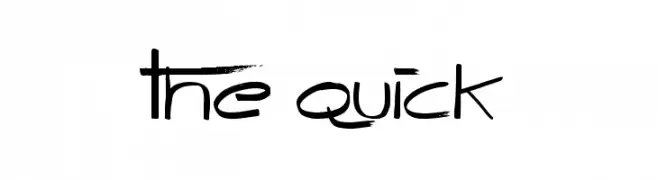
( Fonts by or from www.graffitifonts.net )
A playful, bold outline font with a hand-drawn, cartoonish style.
( Fonts by Nick Curtis - www.nicksfonts.com )
A dynamic, slanted font with elongated, narrow characters and a sleek, modern appearance.
( Fonts by Nick Curtis - www.nicksfonts.com )
A bold, vintage-inspired serif font with thick strokes and a strong presence.
A bold, geometric font with a futuristic and condensed design.
( Fonts by www.aenigmafonts.com )
A bold, geometric font with a futuristic and modern aesthetic.
( Fonts by Nick Curtis - www.nicksfonts.com )
A bold, geometric font with Art Deco influences and high contrast.
( Fonts by Nick Curtis - www.nicksfonts.com )
A bold, geometric font with sharp angles and smooth curves, perfect for modern designs.
( Fonts by Daniel Gauthier )
A bold, playful, hand-drawn font with a casual and friendly feel.
( Fonts by www.vicfieger.com )
A bold, hand-drawn font with a rough, textured appearance and dynamic style.
( Fonts by Nick Curtis - www.nicksfonts.com )
A bold, Art Deco-inspired font with geometric shapes and sharp angles.
( Fonts by Nick Curtis - www.nicksfonts.com )
A playful and whimsical font with curly serifs and rounded edges.
( Fonts by Nick Curtis - www.nicksfonts.com )
A bold, retro-style font with a three-dimensional effect and thick outlines.
( Fonts by Daniel Gauthier )
A bold, jagged font with an electric shock appearance.
( Fonts by Jacob Fisher - www.pizzadude.dk )
A bold, graffiti-inspired font with dynamic, hand-drawn strokes.
( Fonts by ShyFonts )
A bold, playful, and oblique font with dynamic curves and angles.
( Fonts by ShyFonts )
A bold, playful font with comic-style, exaggerated letterforms.
( Fonts by ShyFonts )
A playful, bold font with comic-style, exaggerated letterforms.
( Fonts by Mike Hind - Stick Fonts )
A bold, impactful font with thick strokes and a modern style.
( Fonts by Press Gang Studios - Andeh Pinkard - www.pressgang-studios.com )
An italicized, handwritten font with a dynamic and fluid style.
( Fonts by Press Gang Studios - Andeh Pinkard - www.pressgang-studios.com )
A playful, handwritten font with a dynamic and informal style.
( Fonts by Graham Meade - GemFonts )
A bold, oblique font with rounded, smooth letterforms and a dynamic appearance.